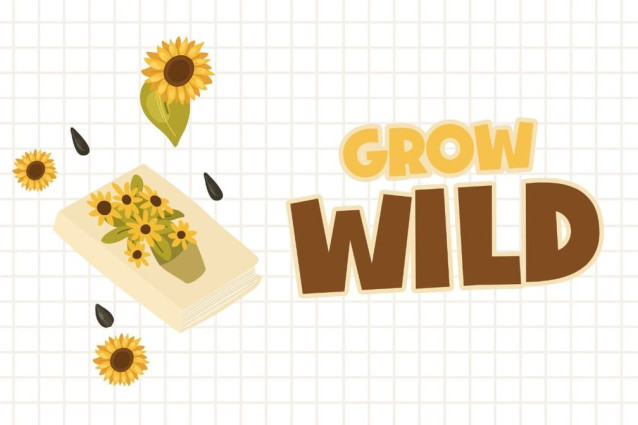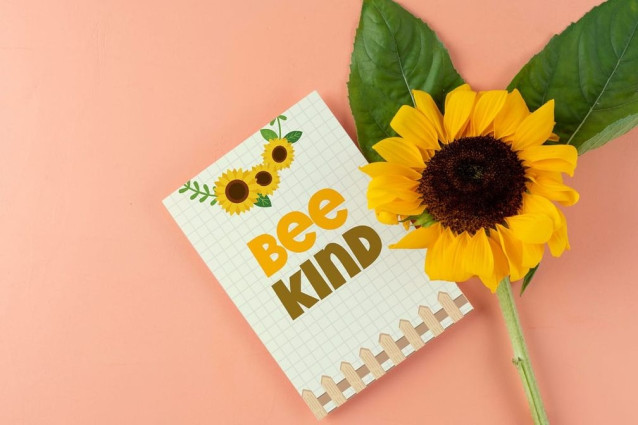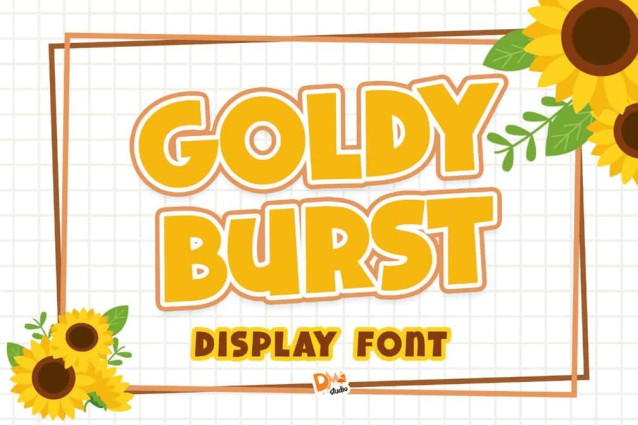
Goldy Burst Font
Goldy Burst Font is a radiant and dynamic typeface designed to infuse your designs with energy and elegance. With its luxurious letterforms and golden accents, this font adds a touch of glamour and sophistication to your projects. Perfect for branding, invitations, packaging, and more, the Goldy Burst Font will elevate your designs with its dazzling charm.
• Radiant and Dynamic Design: The Goldy Burst Font features vibrant letterforms and golden accents that exude energy and elegance.
• Luxurious Aesthetic: With its luxurious design, this font adds a touch of glamour and sophistication to your projects.
• Versatility in Application: Suitable for a wide range of design projects, including branding, invitations, packaging, and more.
• Uppercase and Lowercase Letters: Both uppercase and lowercase letters included for creative flexibility.